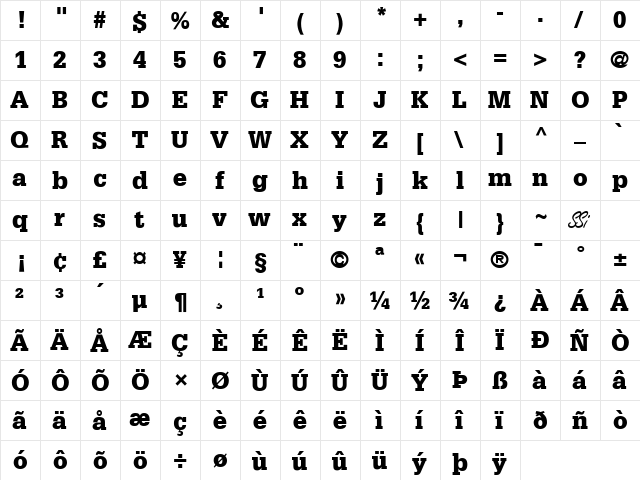
Installation Black SSi Black
Design Context for Installation Black SSi Typeface
Installation Black SSi takes a measured approach to typography — its balanced proportions and neutral character make it a reliable workhorse for both digital and print work.